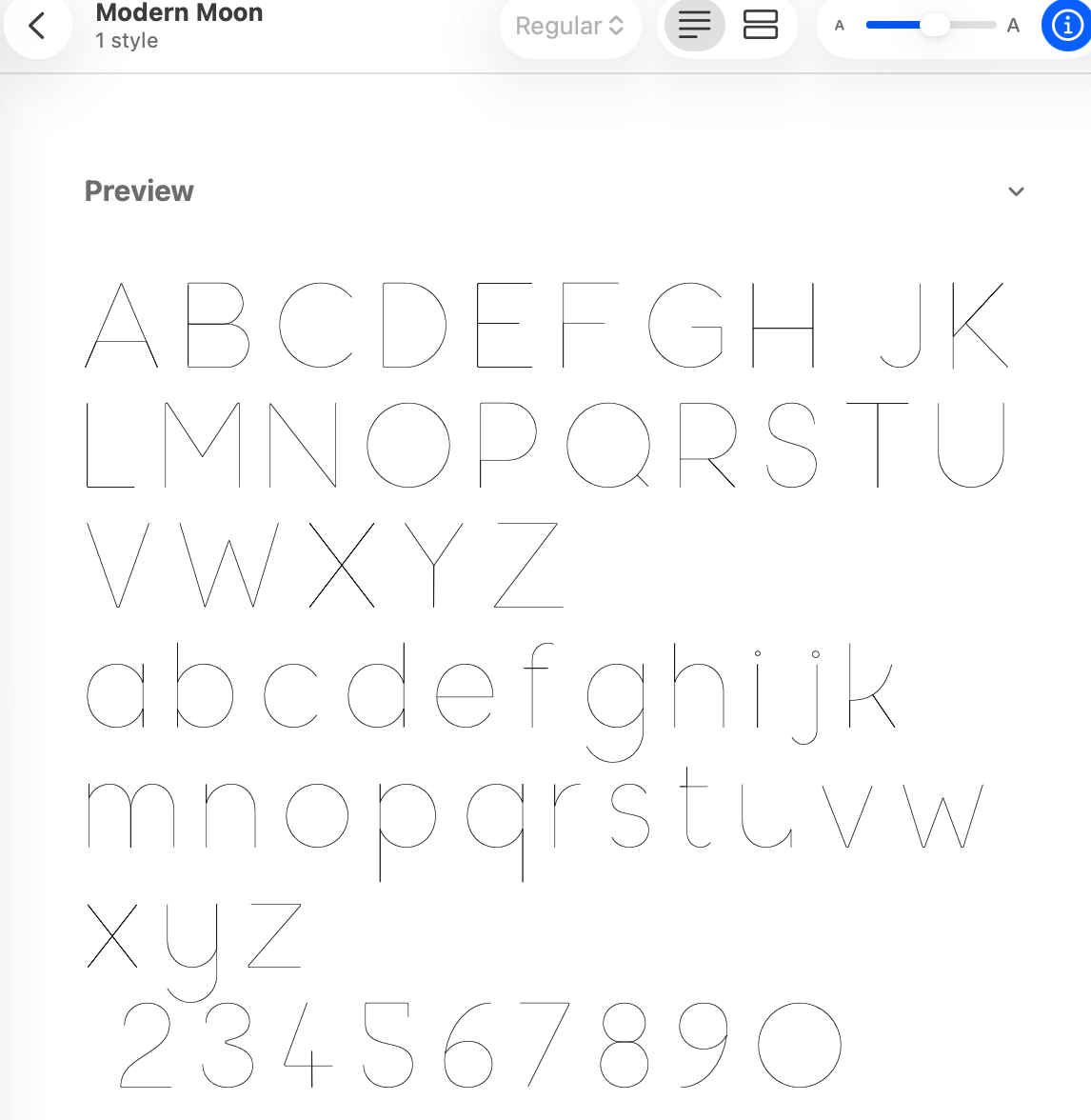
Single Line Font For Cricut And Laser engraving/cutting
These single line fonts have been lovingly crafted for your crafting pleasure
What are single line fonts?
Single Line fonts are specially designed fonts for CNC machines including laser engravers, Cricut, Silouette and other popular hobby machines.
These fonts will increase the productivity of your project by using vector lines instead of vector fills to create your text when using your chosen CNC machine.
Fonts can be used in applications such as wedding invitations, coaster designs, card designs, shirts and for laser engraving it can be used for wood, plastics and cardboards
Will these single line fonts work with laser engraving machines?
Absolutely!
Our single line fonts will work with any CNC machines especially laser engraving machines. They cut down laser cutting times by up to 90%. If you have any other questions about single line fonts and laser engraving, don't hesitate to send me a message in my shop!
Some characters do not render on MacOS and it appears to not be a single line font. Note missing "I", "l" and "1".